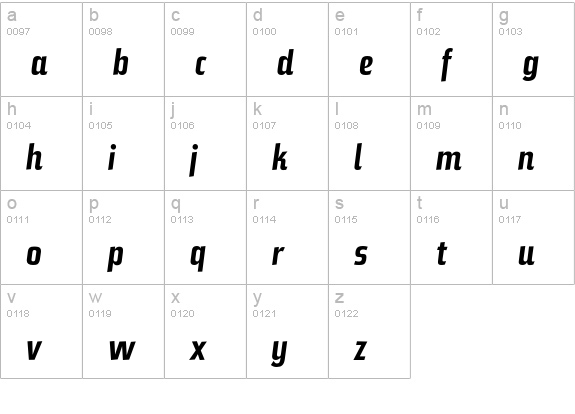
BauerTopic-BoldItalic Font Details
BauerTopic-BoldItalic is a striking and elegant font that exudes confidence and sophistication. Its bold and italicized design adds a touch of flair to any project, making it perfect for headlines, titles, and branding materials. The sleek lines and sharp angles of BauerTopic-BoldItalic create a modern and eye-catching look that is sure to captivate your audience. This versatile font is available for free download at FontsMarket.com, making it easily accessible for all your design needs. Whether you're creating a sleek logo, designing a stylish website, or crafting a standout poster, BauerTopic-BoldItalic is the perfect choice to elevate your project to the next level. Download it today and unleash your creativity with this stunning and impactful typeface.